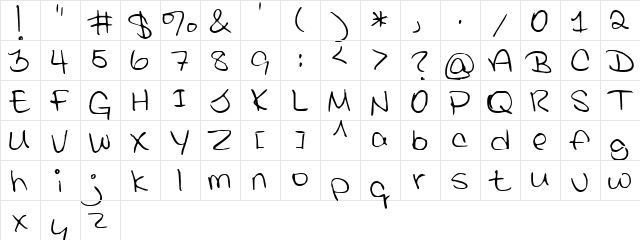
Brianne Hand Regular
Design Context for Brianne Hand Typeface
Brianne Hand flows with the natural rhythm of handwritten lettering, making it ideal for designs that call for warmth and personal expression.
Font Pairing: Combine Brianne Hand with a simple geometric sans for maximum contrast — the tension between flowing curves and clean structure is a classic typographic pairing.
Pro Tip: Pair Brianne Hand with a clean sans-serif for supporting text. The contrast between fluid script and geometric structure creates an elegant typographic hierarchy.